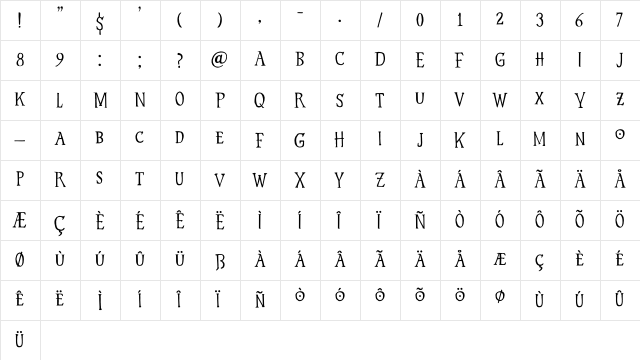
Hyldemoer DEMO Regular
| Foundry | David Kerkhoff |
| Designer | David Kerkhoff |
Design Context for Hyldemoer DEMO Typeface
Hyldemoer DEMO offers clean, dependable letterforms without strong stylistic allegiance, making it a practical choice for designers who need flexibility.